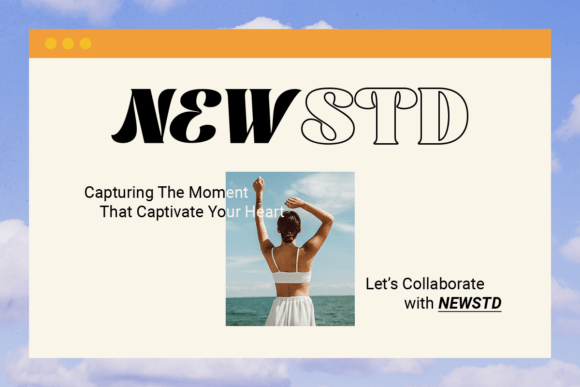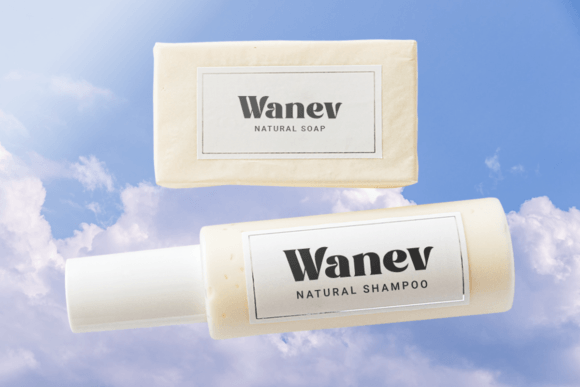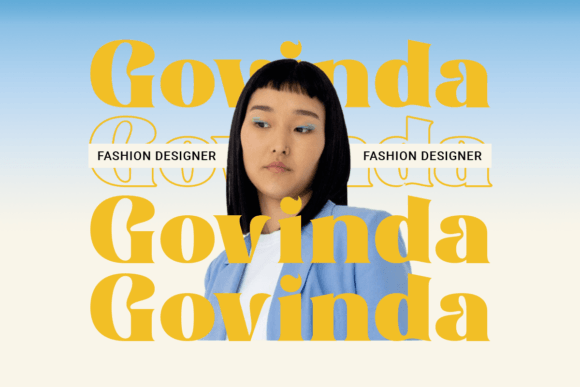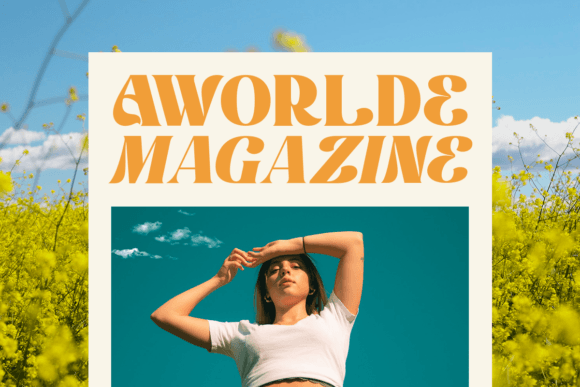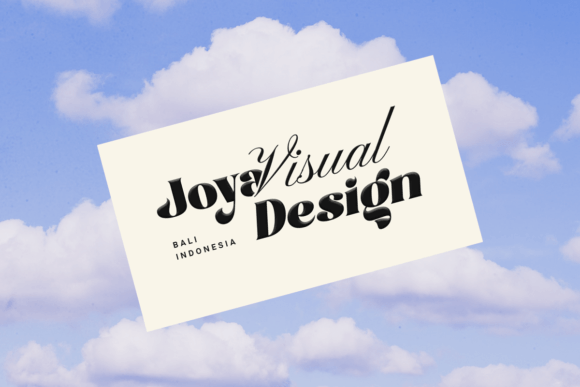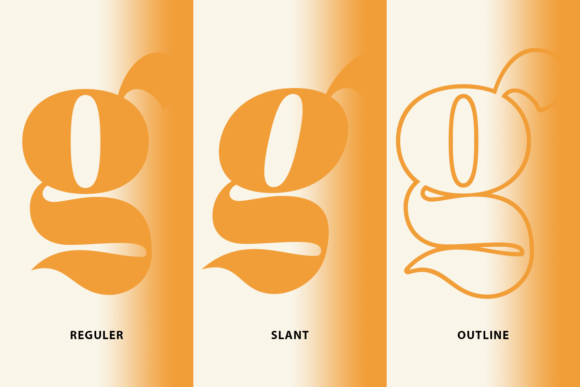
Introducing Badmood Font: Elevate Your Designs with a Bold and Modern Style
In the world of design, fonts play a crucial role in conveying the tone and personality of a project. Whether you’re a graphic designer, a crafty DIY enthusiast, or a business owner looking to establish a strong brand identity, the right font can make all the difference. That’s where Badmood Font comes in – a sleek and modern bold font designed to make a statement.
The Power of Badmood Font
Badmood Font is a game-changer for anyone looking to add a touch of sophistication to their creative projects. With its clean lines and strong presence, this font exudes confidence and style. Perfect for headlines, logos, branding, and more, Badmood Font is the perfect choice for designers and crafters who want to elevate their work to new heights.
What Sets Badmood Apart
So, what makes Badmood Font stand out from the rest? Here are just a few features that make it a must-have for designers and crafters:
- Modern and Bold Design: Badmood Font boasts a sleek and modern design that’s perfect for making a statement. Its bold lines and strong presence ensure that your text stands out from the crowd.
- Clean and Sophisticated: Despite its bold nature, Badmood Font has a clean and sophisticated look that’s perfect for a wide range of projects, from corporate branding to DIY crafts.
- PUA Encoded: Badmood Font is PUA encoded, which means you can access all of the amazing glyphs and ligatures with ease. This makes it easy to customize your text and add a personal touch to your designs.
- Versatile: Badmood Font is perfect for a wide range of projects, including headlines, logos, branding, and more. Its versatility makes it a valuable addition to any designer’s toolkit.
Why Choose Badmood Font?
With so many fonts on the market, why choose Badmood Font? Here are just a few reasons why designers and crafters are falling in love with this modern bold font:
- Easy to Read: Despite its bold nature, Badmood Font is easy to read, making it perfect for body text as well as headlines.
- Highly Customizable: With its PUA encoding, Badmood Font is highly customizable. You can access a wide range of glyphs and ligatures to add a personal touch to your designs.
- Unique and Memorable: Badmood Font has a unique and memorable look that’s sure to make your designs stand out from the crowd.
How to Use Badmood Font
So, how can you use Badmood Font in your designs? Here are just a few ideas to get you started:
- Headlines and Titles: Use Badmood Font to create bold and eye-catching headlines and titles that grab attention.
- Logos and Branding: Create a strong brand identity with Badmood Font. Its modern and bold design makes it perfect for logos, business cards, and more.
- DIY Crafts: Add a touch of sophistication to your DIY crafts with Badmood Font. Use it to create custom signs, banners, and more.
In conclusion, Badmood Font is a sleek and modern bold font that’s perfect for designers and crafters who want to make a statement. With its clean lines, strong presence, and PUA encoding, this font is highly customizable and versatile. Whether you’re looking to create bold headlines, logos, or DIY crafts, Badmood Font is the perfect choice. So why wait? Embrace the power of modern design with Badmood Font and elevate your creative projects to new heights.
- Explore its Features: Take some time to explore the features of Badmood Font, including its PUA encoding and customizable glyphs and ligatures.